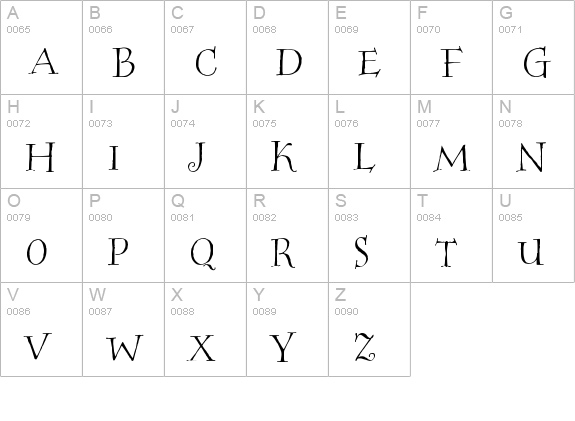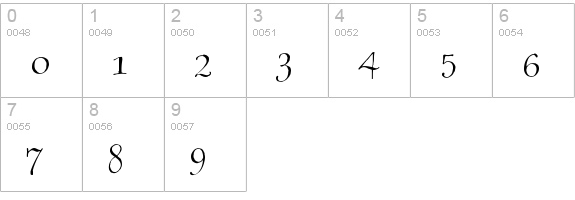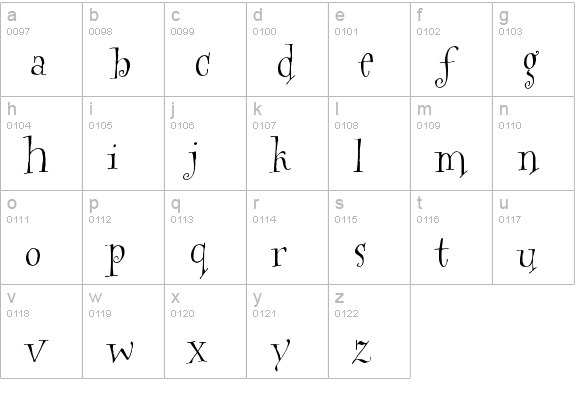
HogwartsWizard font is a magical and enchanting typeface that will transport you to the world of wizardry and wonder. With its elegant yet whimsical design, this font captures the essence of the mystical Hogwarts School of Witchcraft and Wizardry. Whether you're creating invitations, posters, or any other design project, HogwartsWizard font will add a touch of magic and charm. The best part? HogwartsWizard font is completely free to download at FontsMarket.com. Embrace the magic and bring your designs to life with this captivating font that is sure to cast a spell on anyone who sees it. Let your creativity soar with HogwartsWizard font and watch as your projects become truly enchanting.